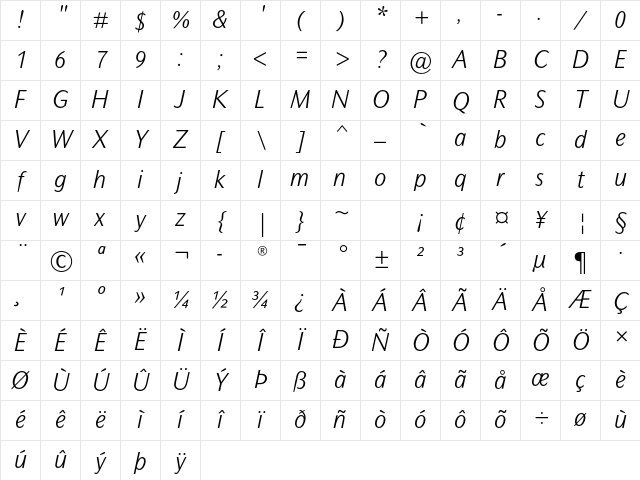
Mahsuri Sans MT Std Light It
Style: Light It
Foundry: Agfa Monotype Corporation
Design Context for Mahsuri Sans MT Std
Mahsuri Sans MT Std is a composed and adaptable typeface that performs quietly and consistently across a wide range of design contexts. Its slender proportions lend an understated elegance to any composition.